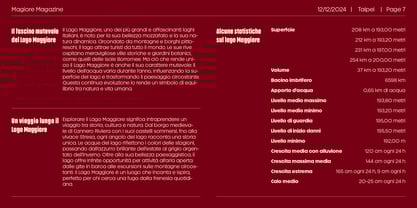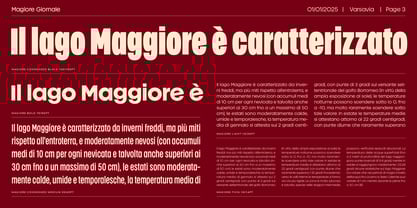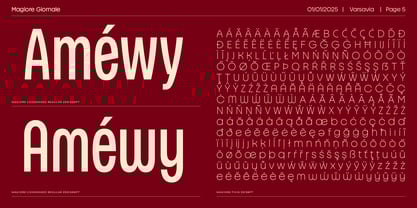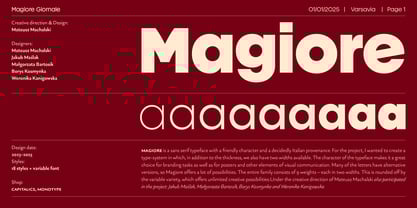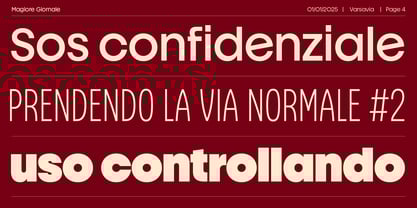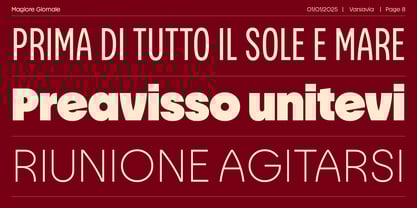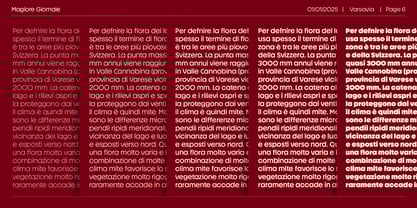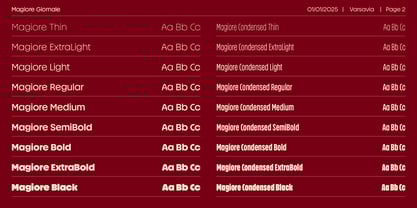
Magiore VF
by Machalski
The Magiore VF Font Family was designed by Mateusz Machalski and published by Machalski. Magiore VF contains 19 styles and family package options. More about this family
Magiore is a sans serif typeface with a friendly character and a decidedly Italian provenance. For the project, I wanted to create a type-system in which, in addition to the thickness, we also have two widths available. The character of the typeface makes it a great choice for branding tasks as well as for posters and other elements of visual communication. Many of the letters have alternative versions, so Magiore offers a lot of possibilities. The entire family consists of 9 weights – each in two widths. This is rounded off by the variable variety, which offers unlimited creative possibilities.Under the creative direction of Mateusz Machalski also participated in the project: Jakub Maślak, Małgorzata Bartosik, Borys Kosmynka & Weronika Kanigowska
Designers: Mateusz Machalski
Foundry: Machalski